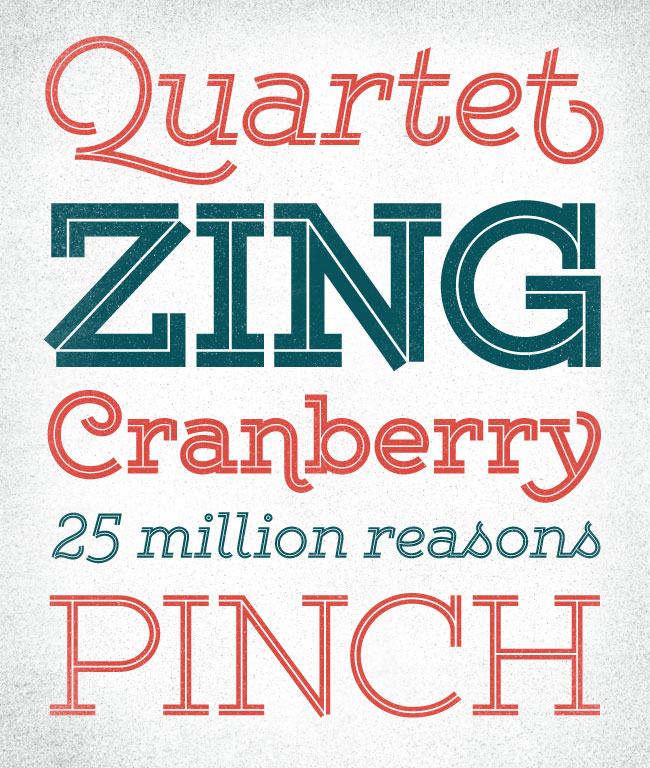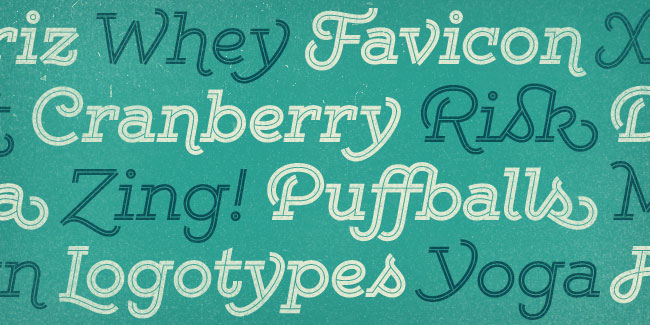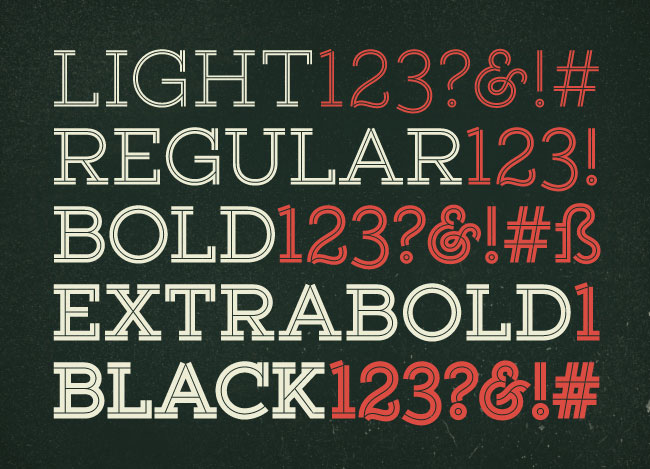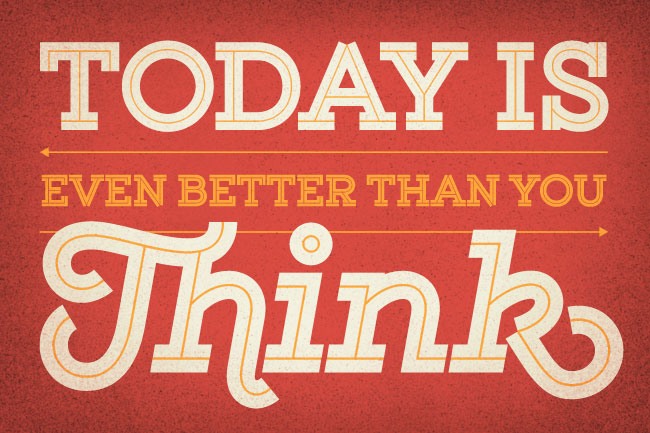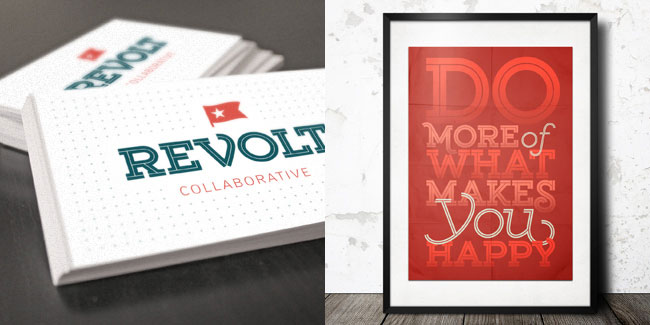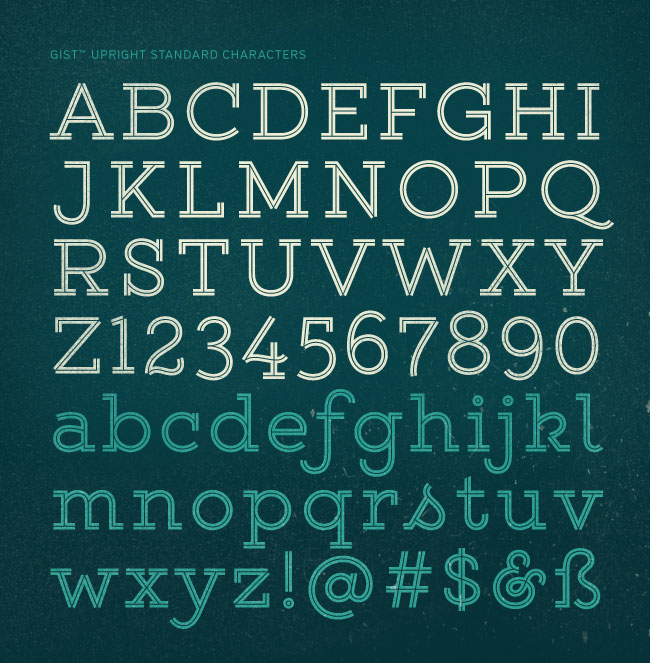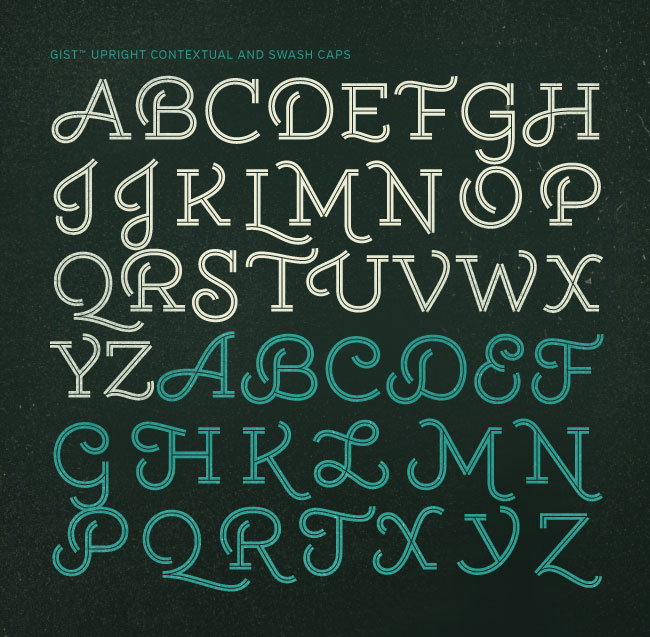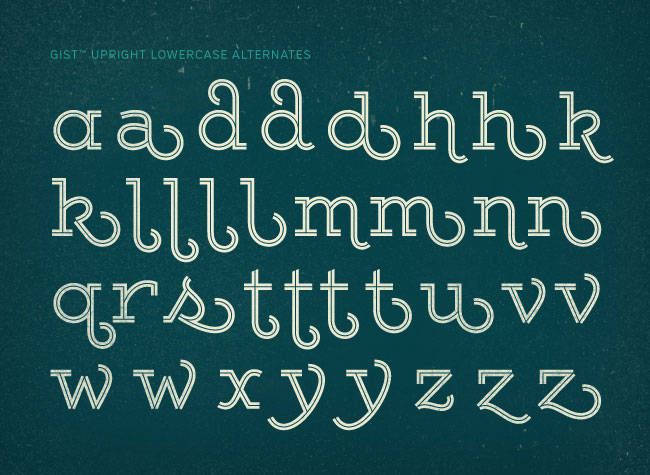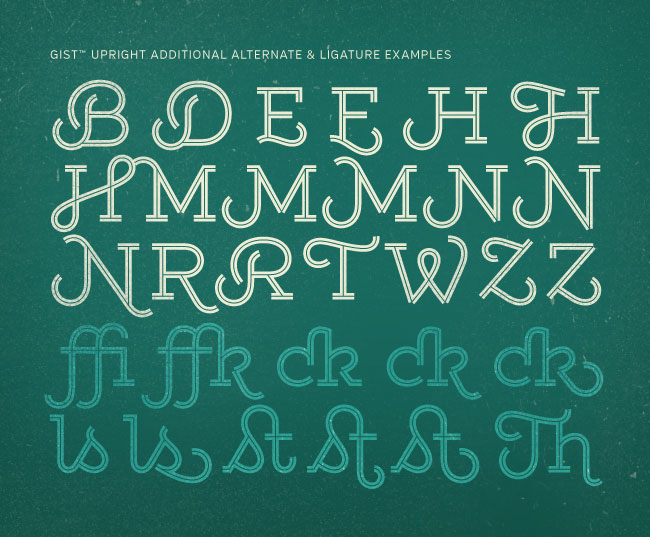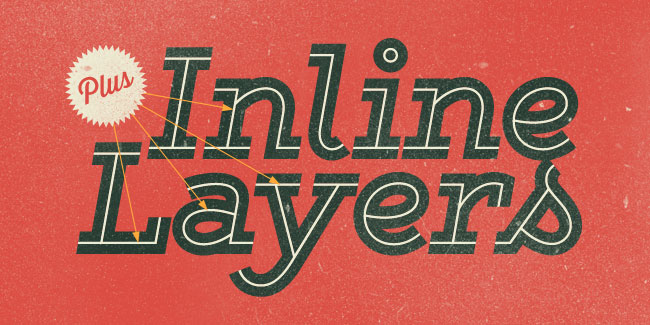
Another masterpiece from Yellow Design Studio, Gist is an inline slab serif that features a retro yet modern vibe. With 20 weights and loads of OpenType features including ligatures, swashes and alternates, it comes primed with the tools to work on just about any project. But you’ll need to act fast! For a limited time only, you can nab all 20 Gist fonts
Gist Font Family Highlights:
- A Retro Meets Modern Slab Serif
Gist is truly one of a kind. This friendly font is an inline slab serif, with a retro yet modern vibe. Perfect to get people to notice your latest project. - 20 Different Weights
The basic Gist font may be more than enough for whatever you’re working on. But if not, not to worry. Your purchase of this Mighty Deal gets you all 20 of Gist’s different weights: Gist Light, Gist Line Light, Gist Upright Line Light, Gist Regular, Gist Line Regular, Gist Upright Line Regular, Gist Bold, Gist Line Bold, Gist Upright Line Bold, Gist Extrabold, Gist Line Extrabold, Gist Upright Line Extrabold, Gist Black, Gist Line Black, Gist Upright Line Black. - 600+ Glyphs
Gist won’t limit you to just the basic 26-letter alphabet. Not even close. Each one of Gist’s 20 weights features 627 different glyphs! Talk about customization! - Tons of Character Alternate
With Gist, you’ll get a treasure trove of alternate features. There are alternate caps and roughly 10 different stylistic sets with all sorts of impressive alternatives. (note: The web fonts do not contain the alternate characters) - Additional OpenType Features
If you like choice, you’ll love Gist! Just some of the many OpenType features this fabulous font includes are: ligatures, discretionary ligatures, contextual alternates, swash caps, superscript, all caps, line layers and more. (note: The web fonts do not contain the OpenType features) - 55+ Different Languages